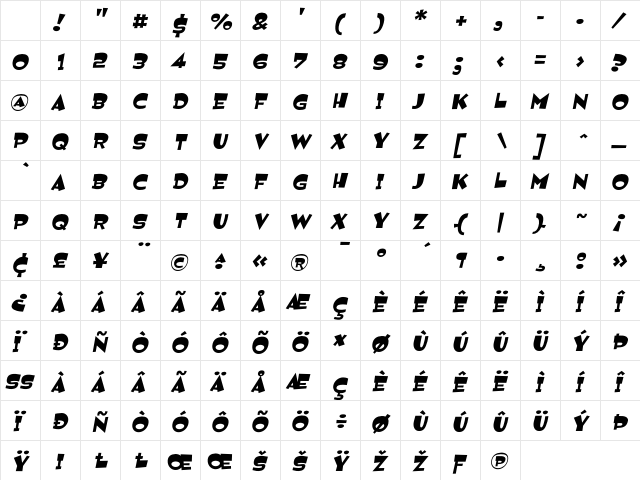
Jemima is a composed and adaptable typeface that performs quietly and consistently across a wide range of design contexts. The slanted form adds forward momentum and visual energy.
Pro Tip: Use Jemima for emphasis, pull quotes, and subheadings where its slanted energy can add rhythm to the layout.